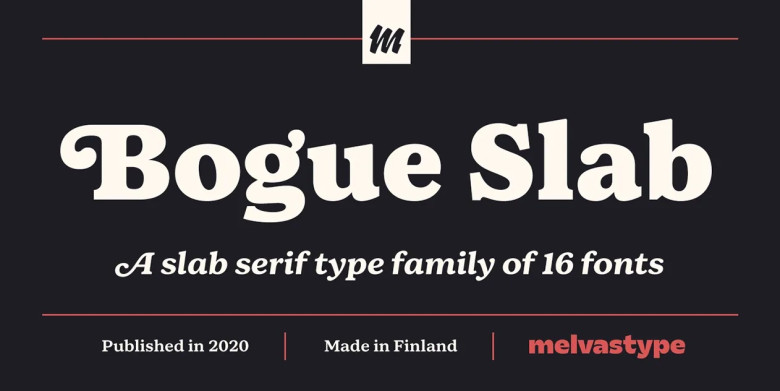
Bogue Slab Font
Bogue Slab is an 8-weight slab serif type family with matching italics. Bogue Slab boasts numerous stylistic alternatives which make it extremely flexible for logo design, branding, editorial design packaging design and web design projects.
You can use Bogue Slab to make striking short phrases or headlines, or longer texts such as lead paragraphs and body copy – making it the ideal font choice! If you’re searching for an adaptable slab serif font you have come to the right place!
Bogue Slab Serif Font Family